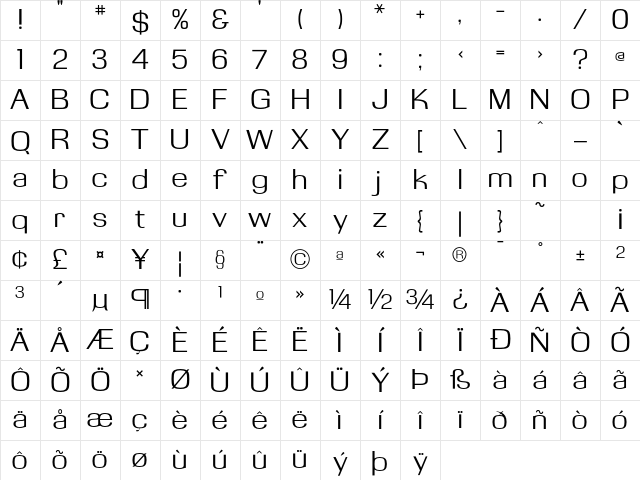
KasseFLF Regular Free Font
KasseFLF Regular
KasseFLF Family
Design Context for KasseFLF
KasseFLF is a composed and adaptable typeface that performs quietly and consistently across a wide range of design contexts.